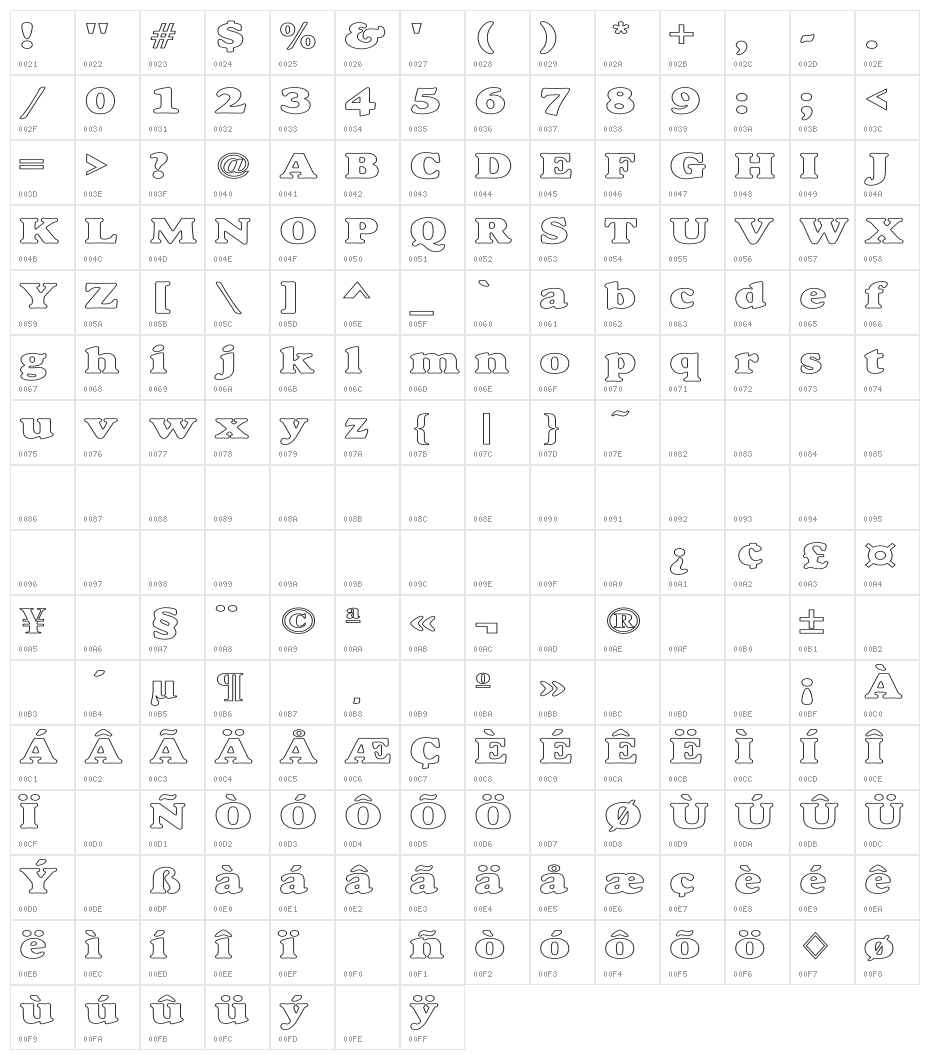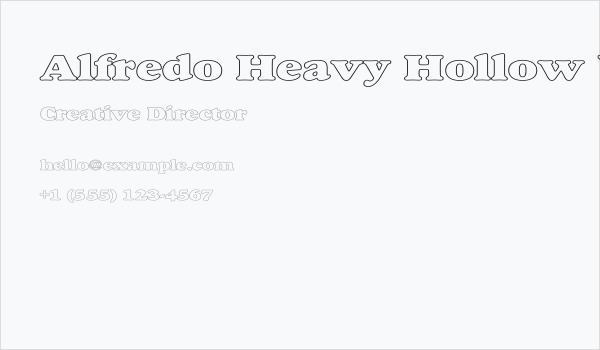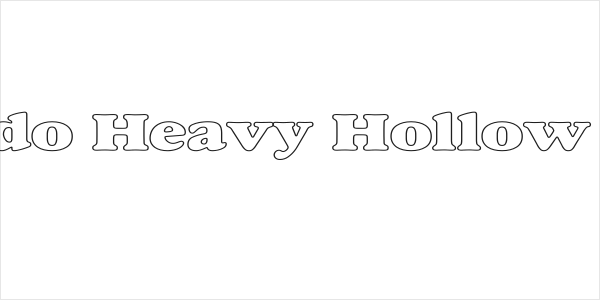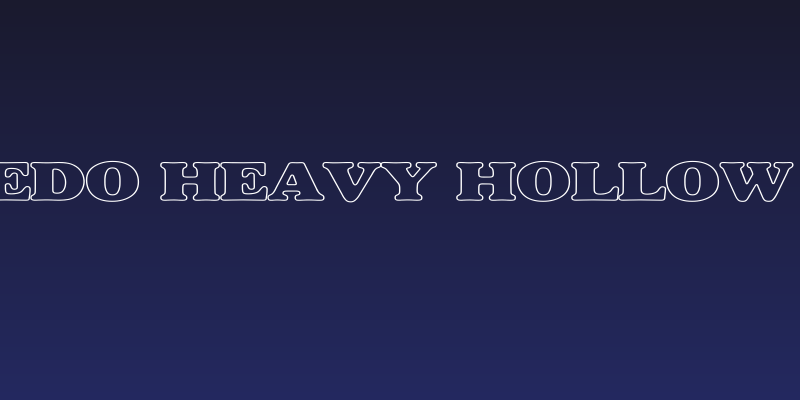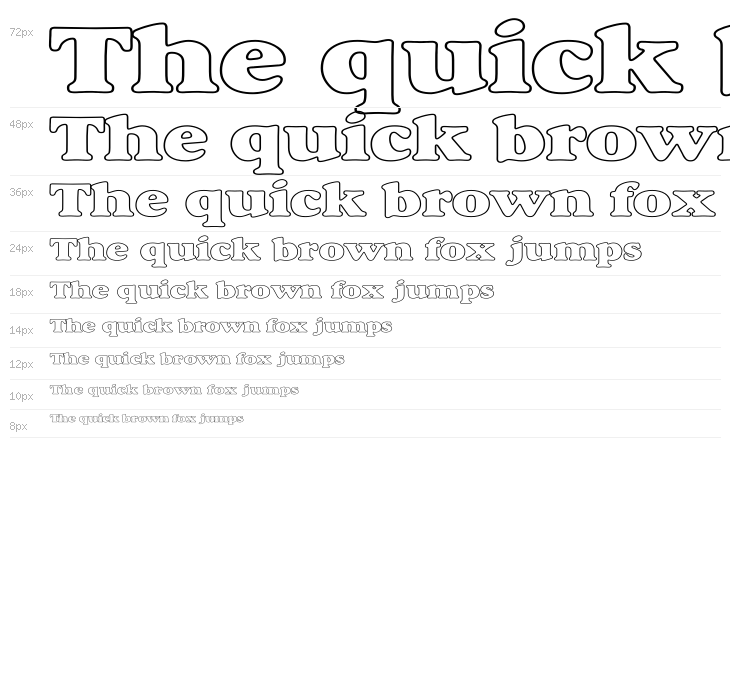
Alfredo Heavy Hollow Wide Font
Alfredo Heavy Hollow Wide Description
This font features a bold and hollow design with wide letterforms, creating a striking and impactful appearance. The uppercase and lowercase letters maintain a consistent style, with rounded edges and a uniform thickness that gives a sense of balance and stability. The numerals and special characters are designed to match the overall aesthetic, ensuring a cohesive look across all text. The hollow nature of the font adds a unique dimension, making it suitable for designs that require a bold statement without overwhelming the viewer.
| Proposed Projects | Ideal for posters, headlines, and branding projects that require a bold and distinctive look. |